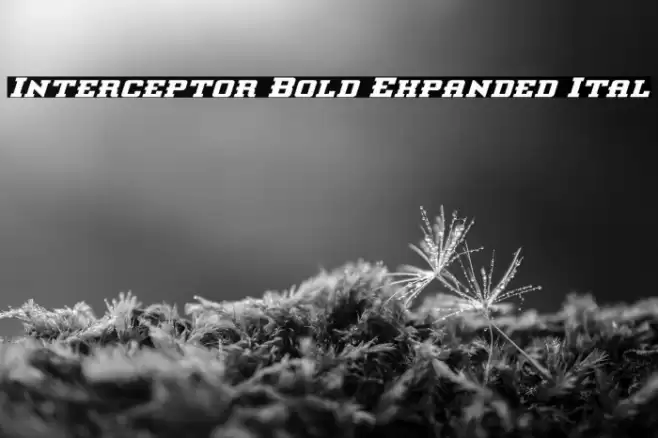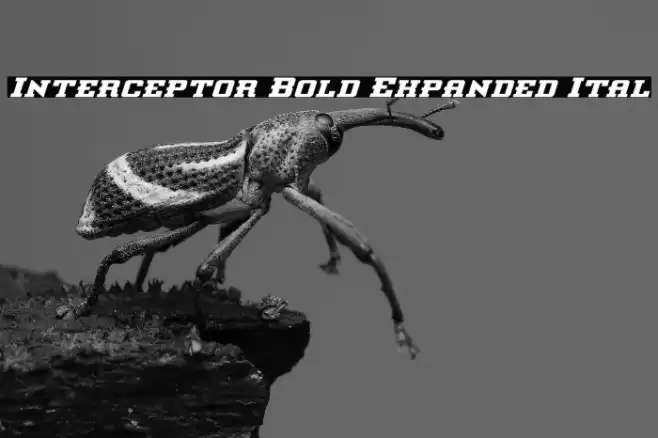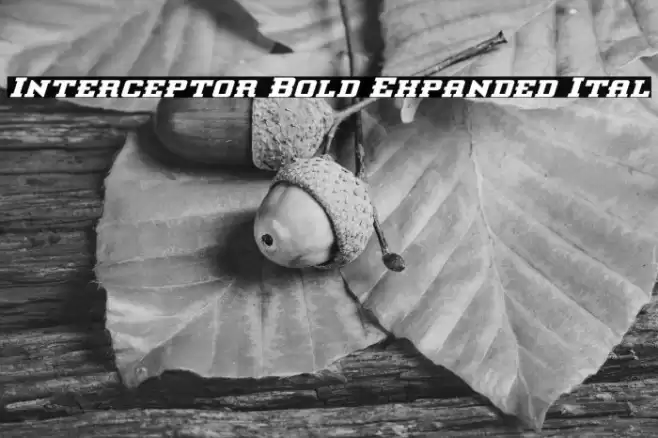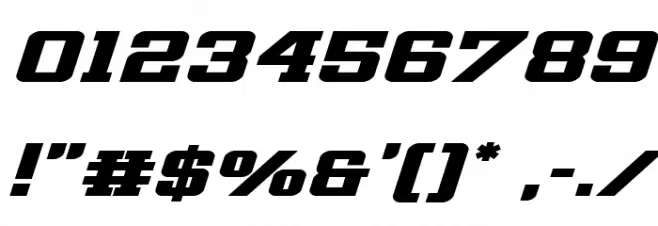
Interceptor Bold Expanded Ital Font
Interceptor Bold Expanded Ital Description
This font exhibits a bold and dynamic style, characterized by its expanded width and italicized form. The letters are robust with a strong presence, making it ideal for attention-grabbing headlines. The strokes are consistent and thick, providing a sense of stability and strength. The italic slant adds a touch of movement and energy, while the expanded width ensures readability even at smaller sizes. The font includes a full set of uppercase and lowercase letters, numbers, and a variety of special characters, making it versatile for different design needs.
A bold, expanded, and italicized font with strong, dynamic strokes from Uncategorized fonts.
- Proposed Projects: Ideal for sports branding, dynamic posters, action-themed designs, and impactful headlines.